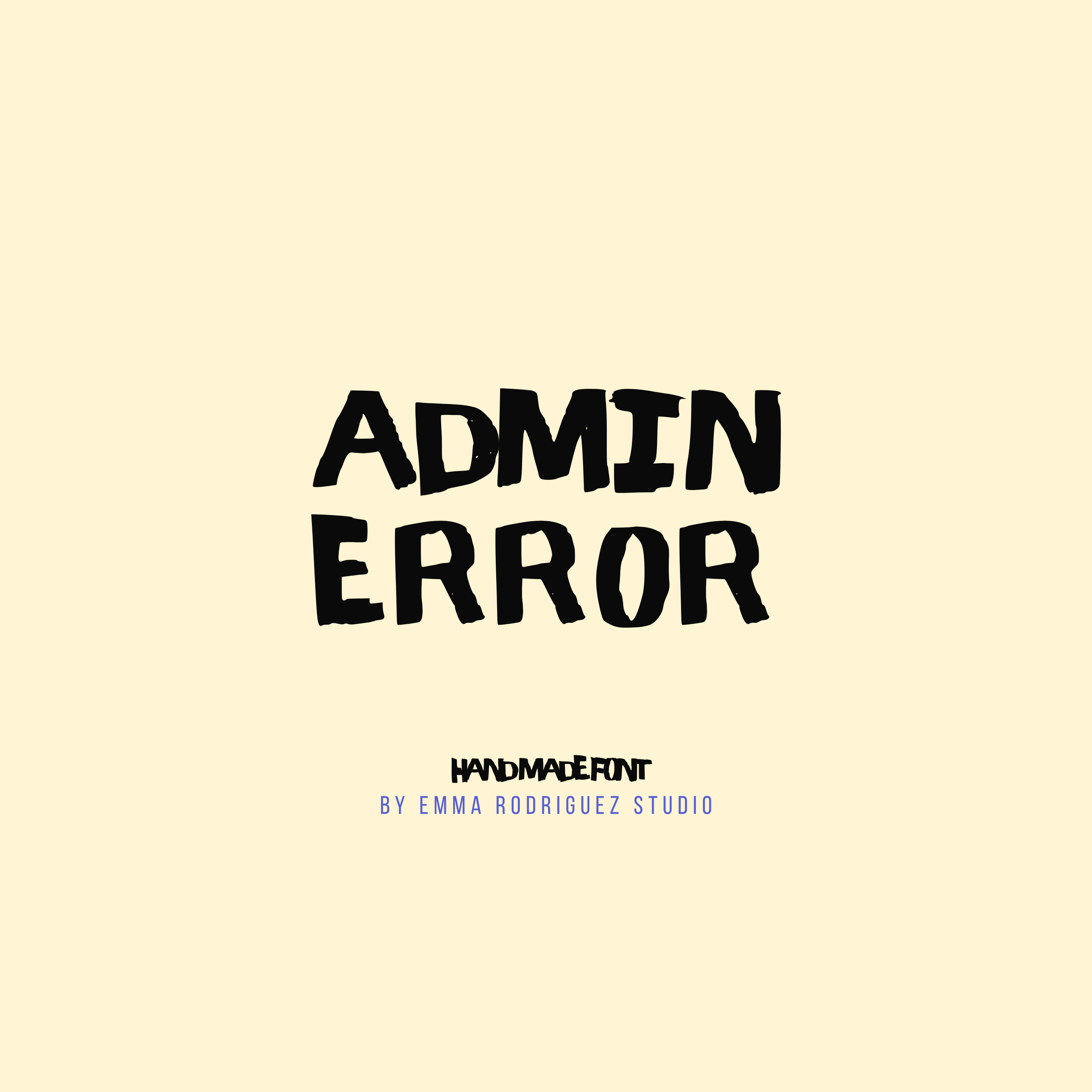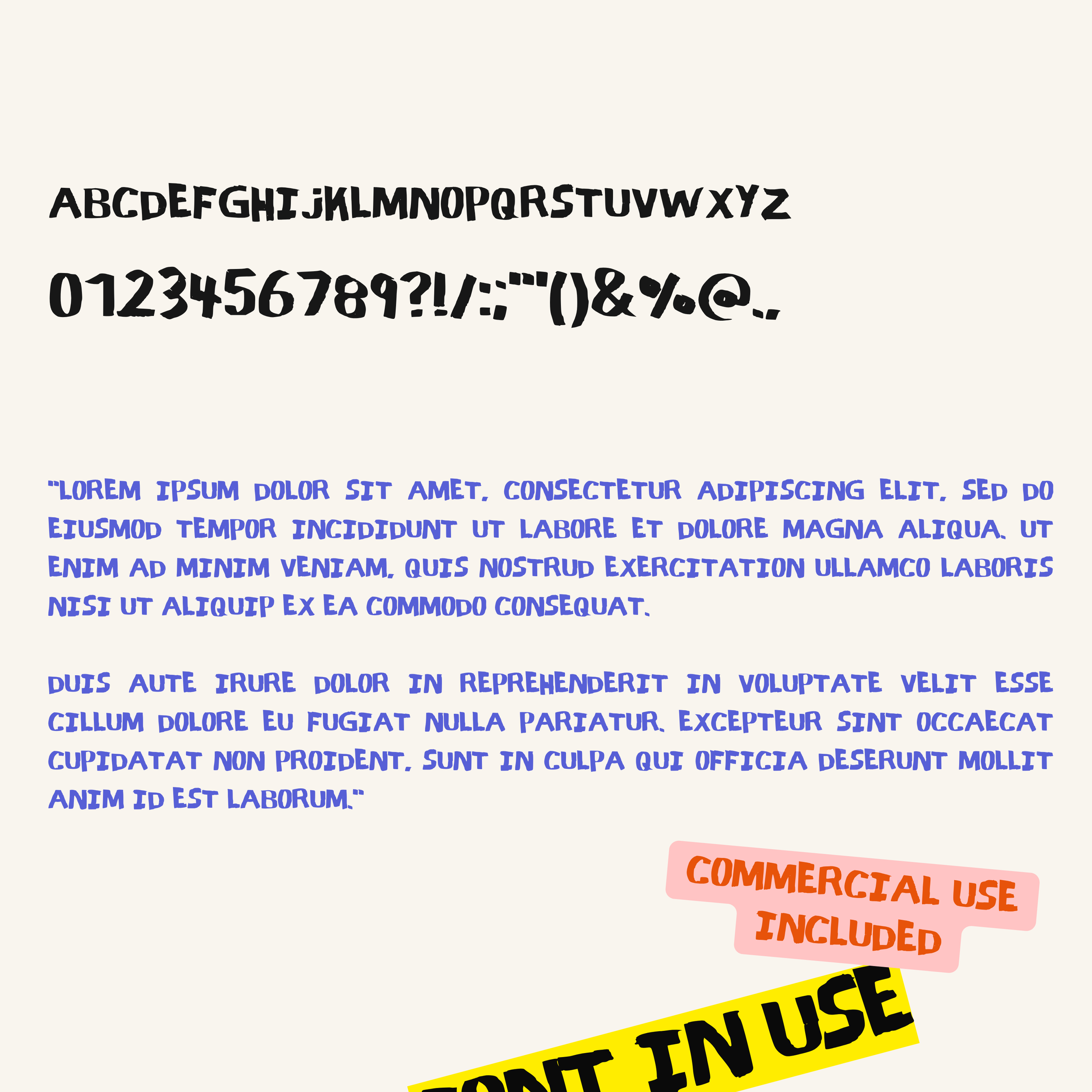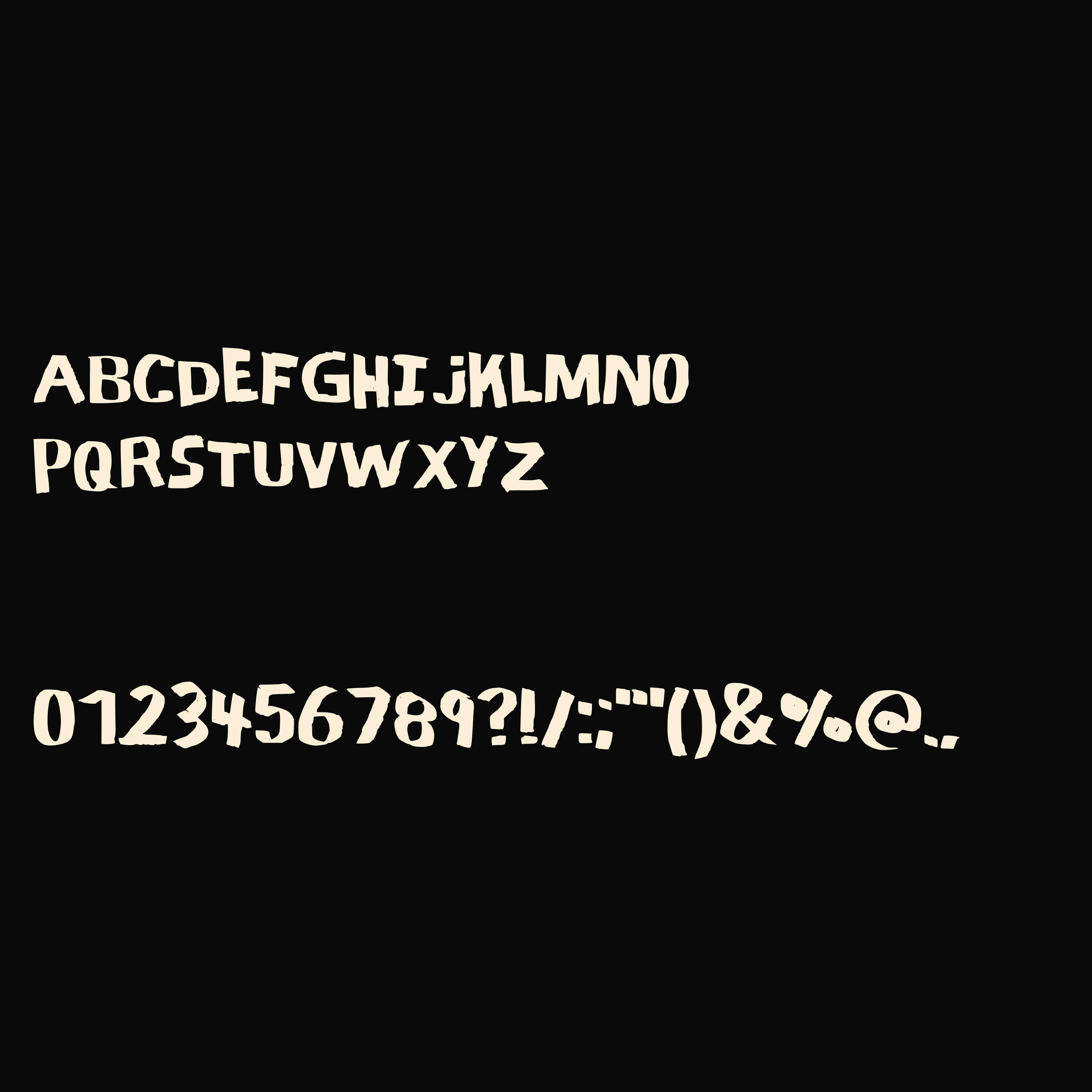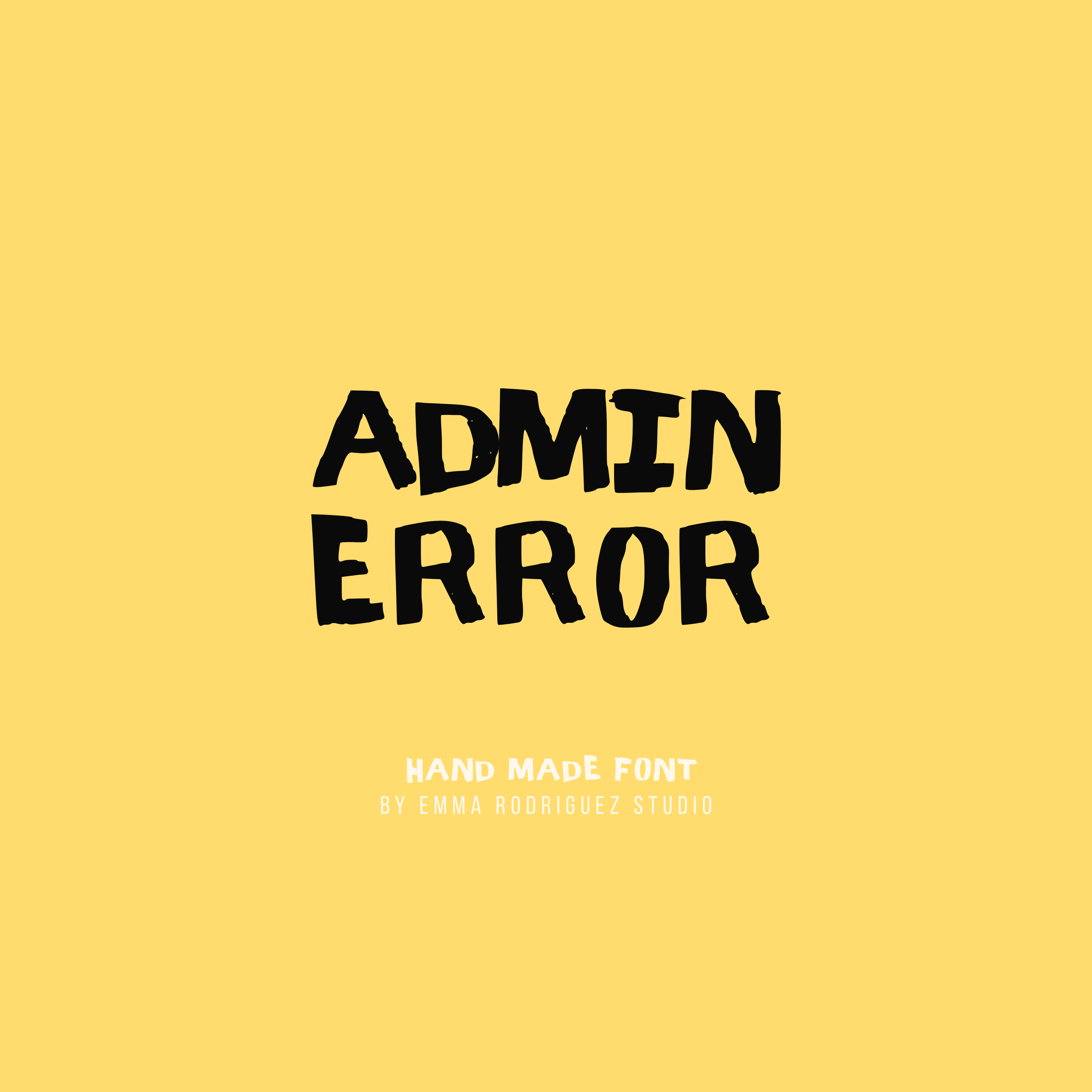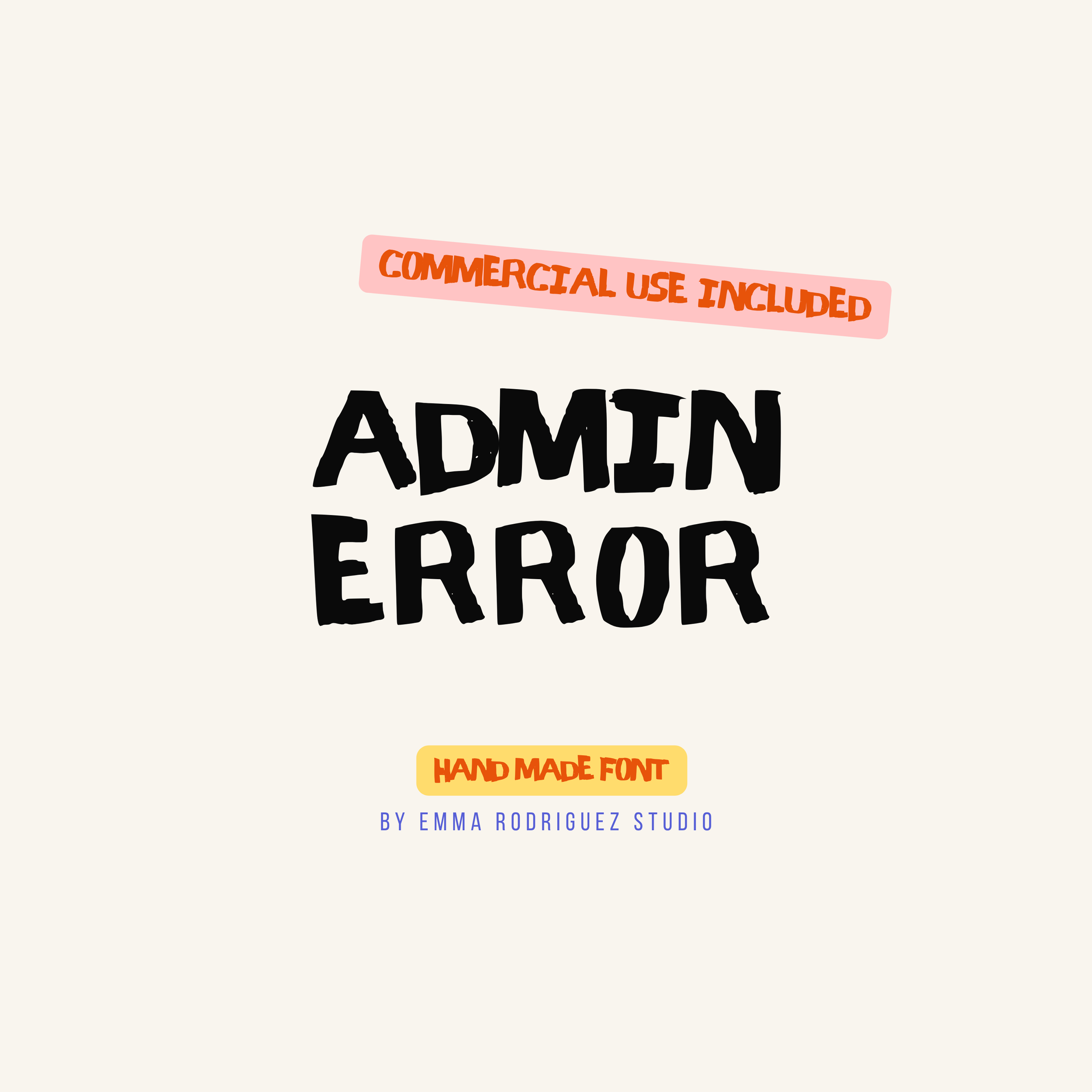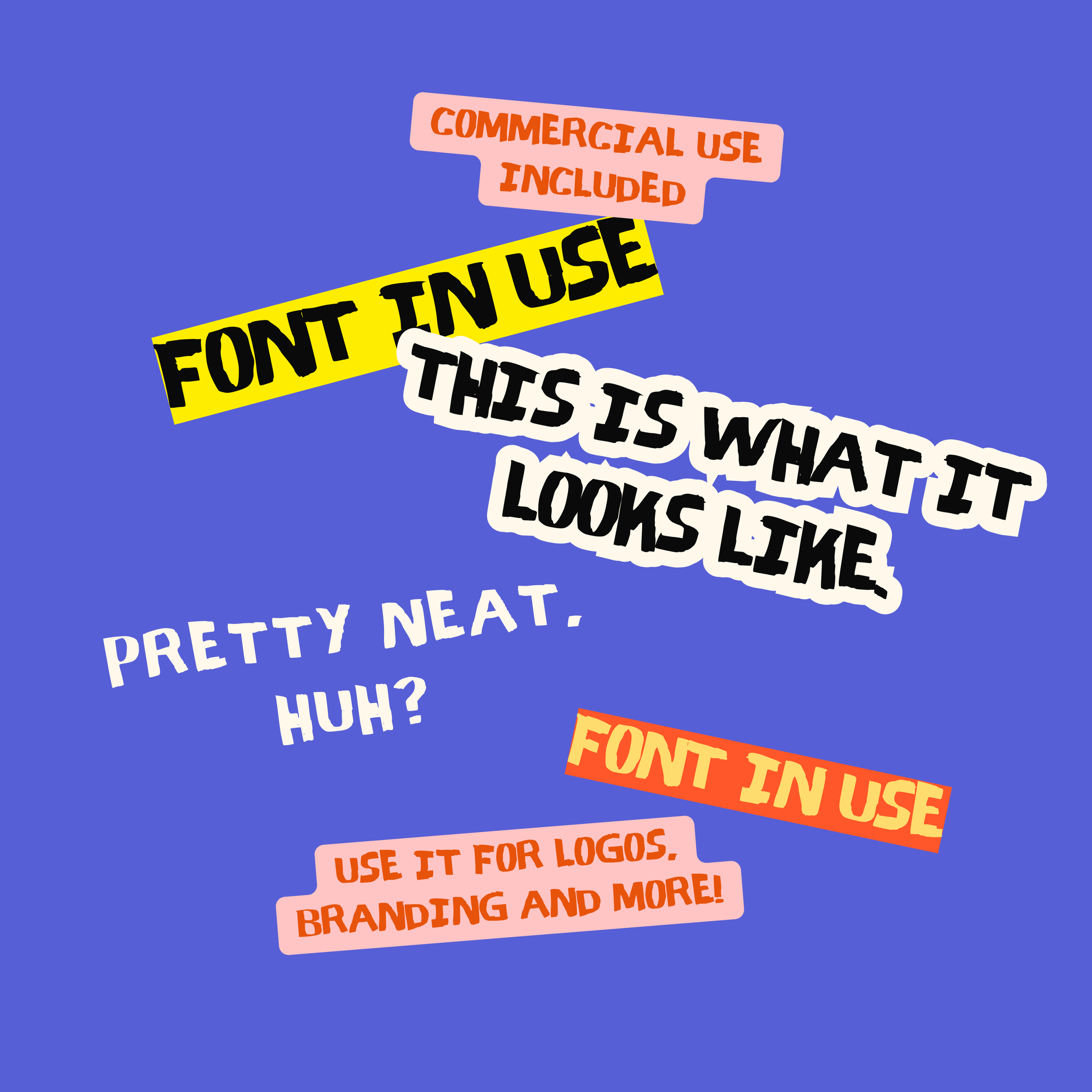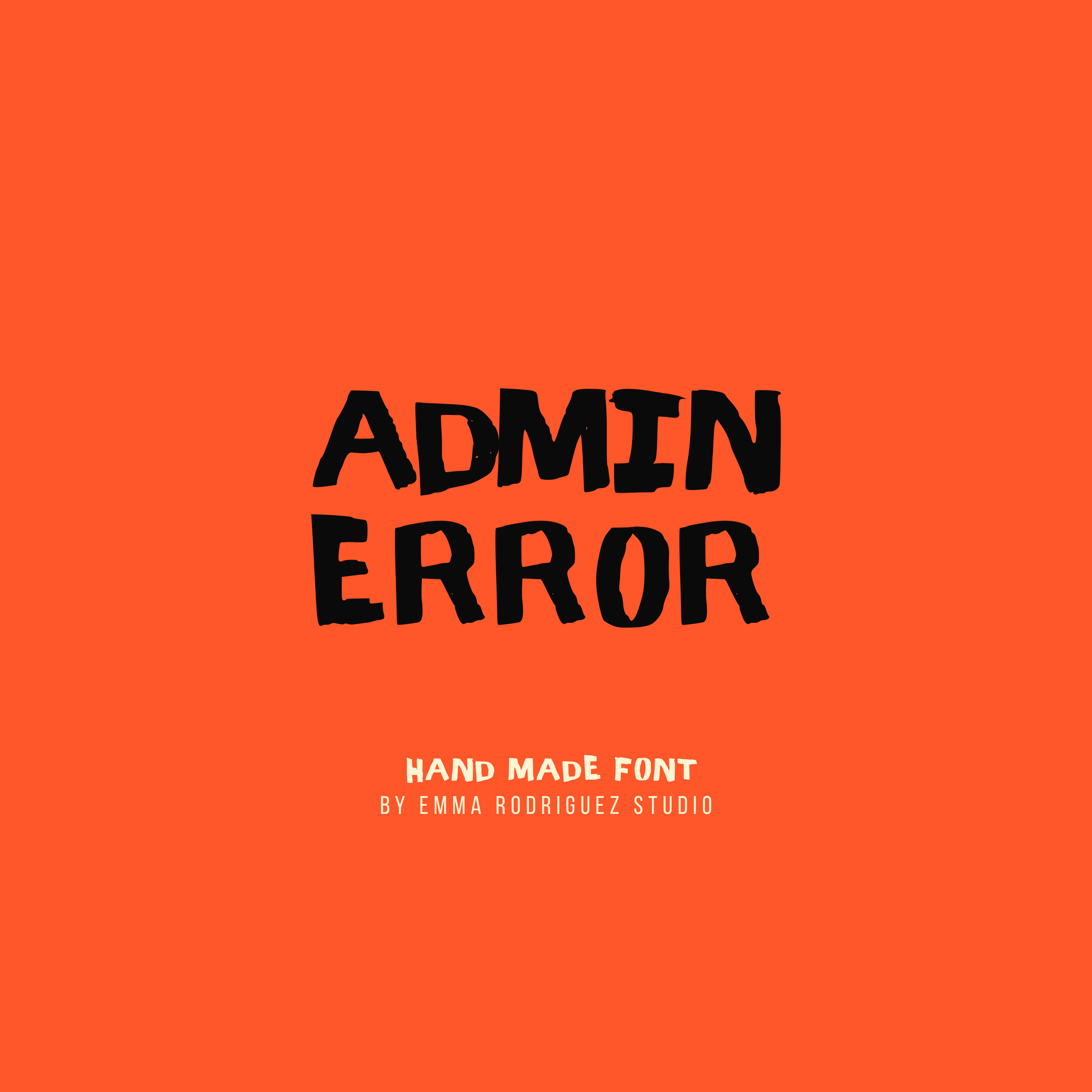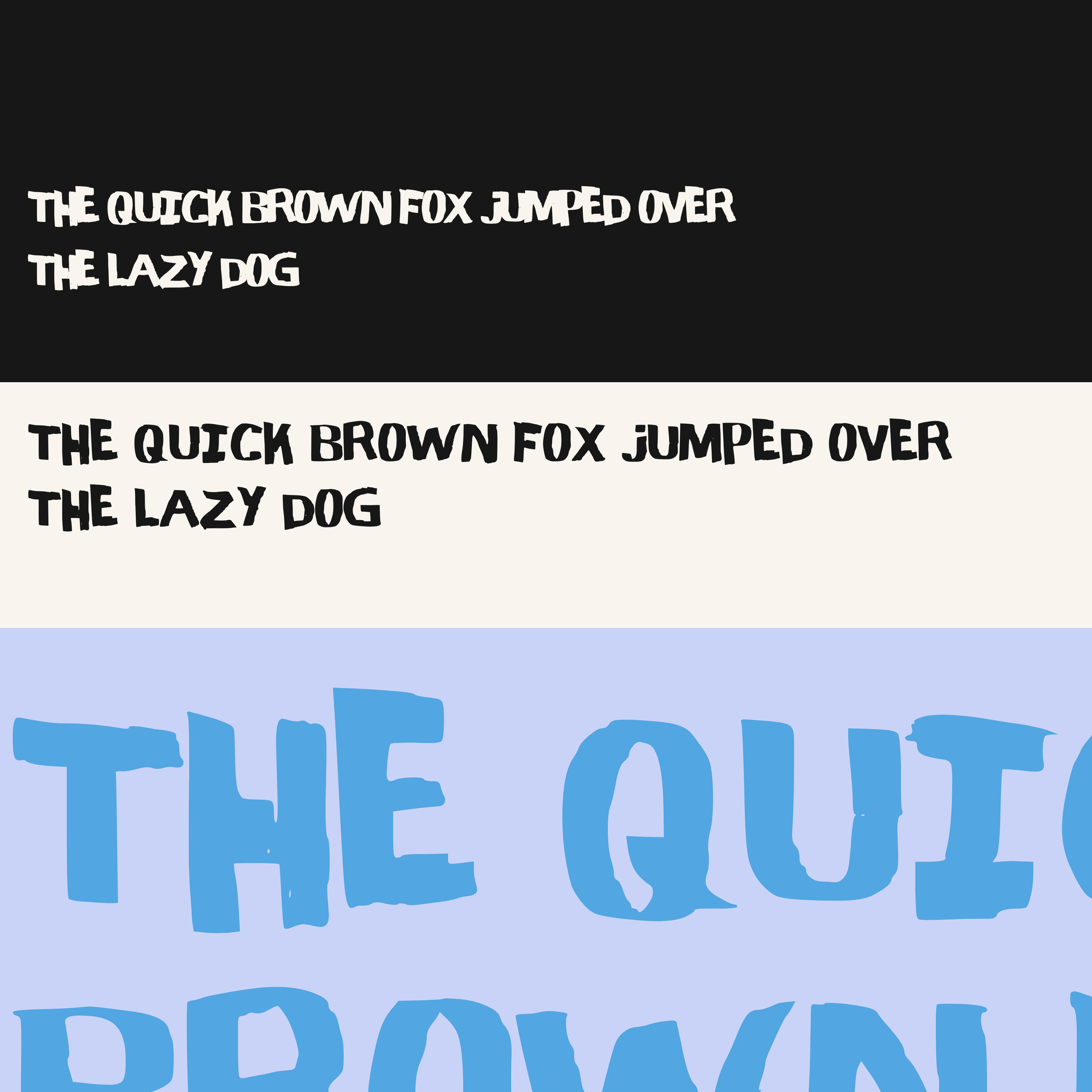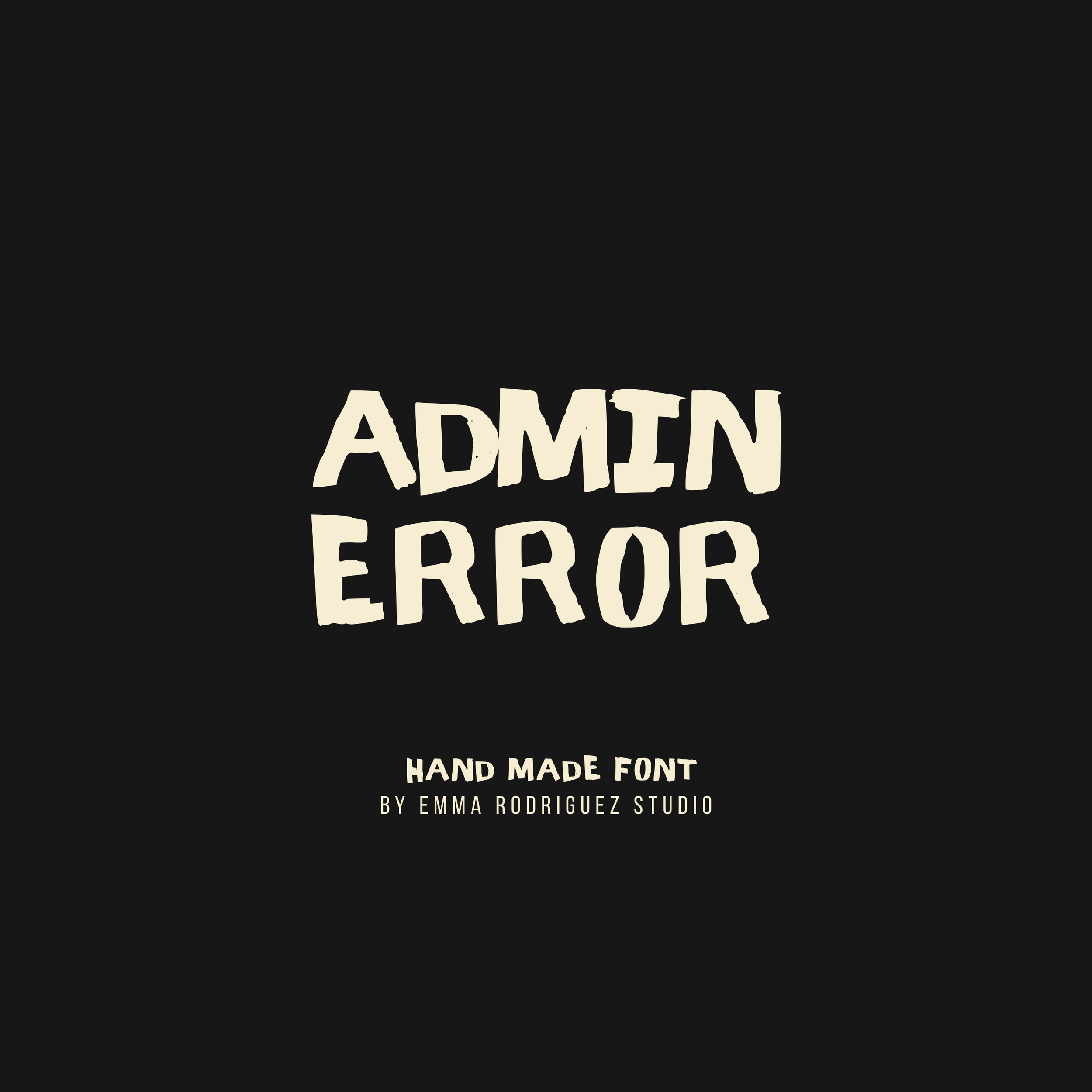
Admin Error Font - Marker Pen Type
Admin Error is a rough hand drawn display font built from chunky block lettering, uneven construction and intentionally awkward proportions. Its inconsistent widths, irregular edges and loose placement give it the raw quality of hand cut, painted or quickly drawn lettering.
The style fits perfectly with contemporary handmade typography, experimental editorial design and personality driven branding where polished perfection is very much not the point.
Please note that Admin Error is intentionally rough and imperfect. Letterforms, spacing, proportions, alignment and overall form may vary throughout the character set. Uneven edges, irregular spacing and awkward construction are intentional features rather than errors, and some manual kerning or letter placement may be useful depending on your layout.